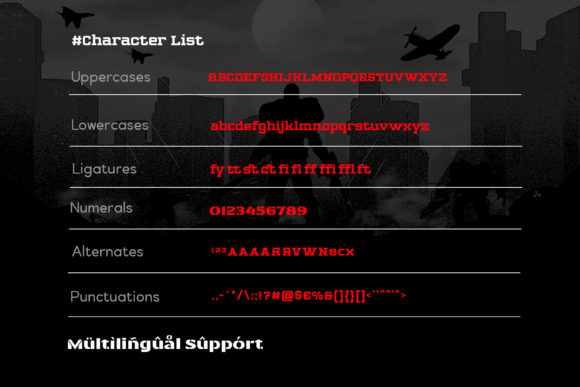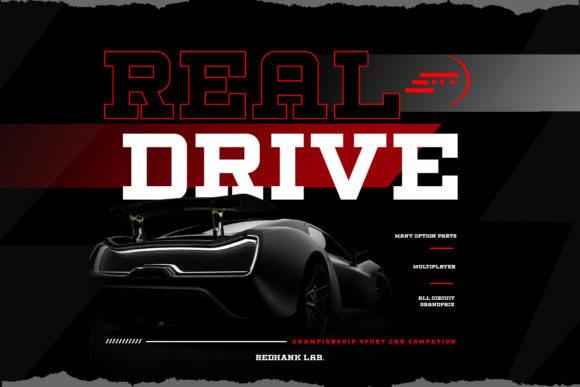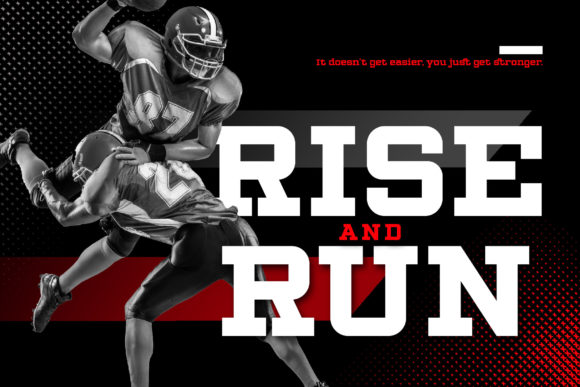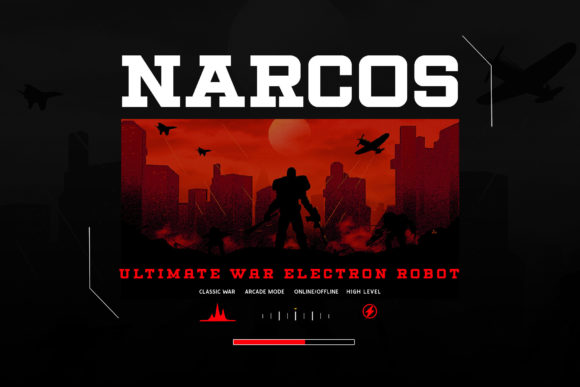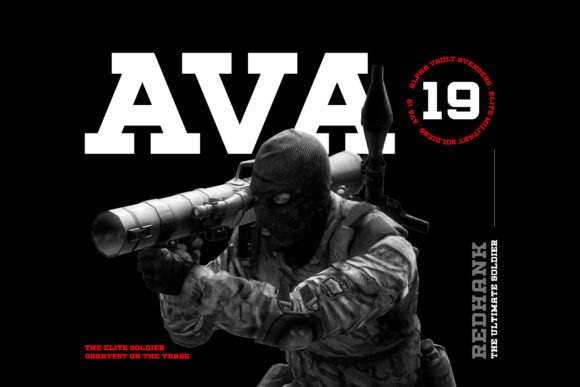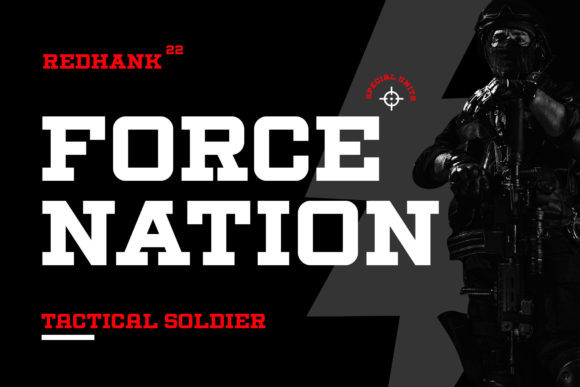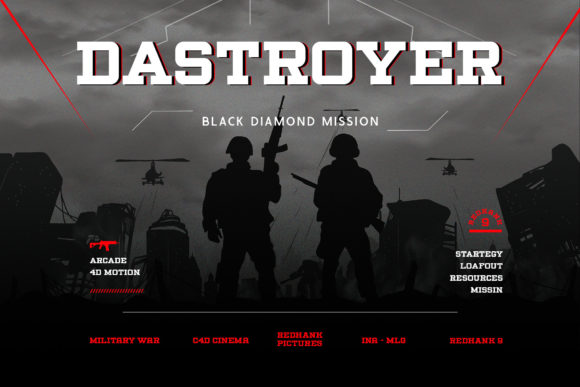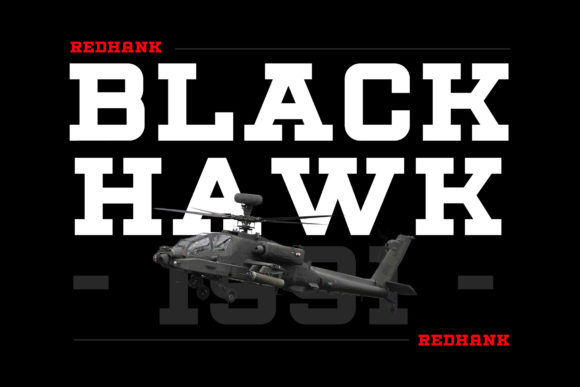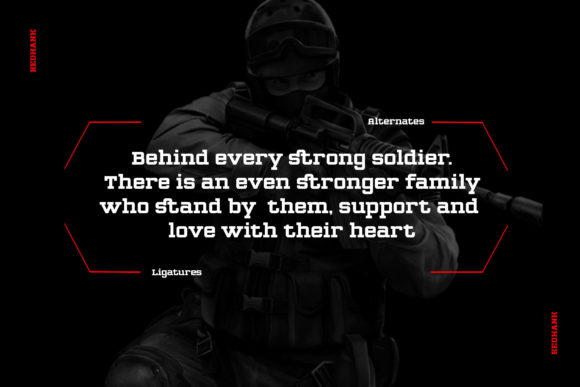
Redhank
Redhank: A Bold and Modern Slab Serif Font
Redhank is a bold and modern expanded slab serif font, perfect for military and racing sport game displays. This versatile font is ideal for a wide range of projects, including logo branding, editorial design, stationery design, sports design, 80s retro design, and more. Its strong presence makes it suitable for the esport game industry, sports racing, supercar brands, music posters, blog designs, modern advertising designs, card invitations, art quotes, home decor, book/cover titles, special events, and beyond.
Key Features of Redhank
• Bold Design: Offers a strong and impactful look suitable for a variety of applications.
• Modern Style: Provides a contemporary aesthetic that enhances visual appeal.
• Versatile Application: Ideal for both print and digital media projects.
• Expanded Structure: Features an expanded design that adds character and style.
Ideal Uses for Redhank
Redhank’s unique characteristics make it particularly well-suited for:
When incorporating Redhank into your designs, consider these tips:
• Use for headlines or short blocks of text to showcase its bold style.
• Utilize its modern style across various creative projects to enhance visual appeal.
Redhank is an excellent choice for designers looking to add a bold slab serif font to their typographic toolkit. Its ability to bring strength and style to various design projects makes it stand out in the world of typography. Whether you’re working on sports branding, creating layouts for magazines, or developing content that requires a touch of dynamism, Redhank offers the perfect blend of style and functionality.
Furthermore, Redhank’s unique design allows it to shine in various contexts. From vintage-inspired designs with a modern twist to more contemporary layouts that need a touch of uniqueness, this font can elevate your projects. Its striking yet functional style works particularly well in designs that require a thoughtful and engaging mood.
In conclusion, Redhank is a font that truly captures the essence of creativity and impact in typography. Its ability to work well in both minimalist projects and more elaborate layouts showcases its flexibility. For those looking to add a touch of unique charm to their work, Redhank can even enhance themed creations with its distinctive style. It’s the perfect choice for designers seeking to make a strong, stylish impact across a wide range of creative projects.